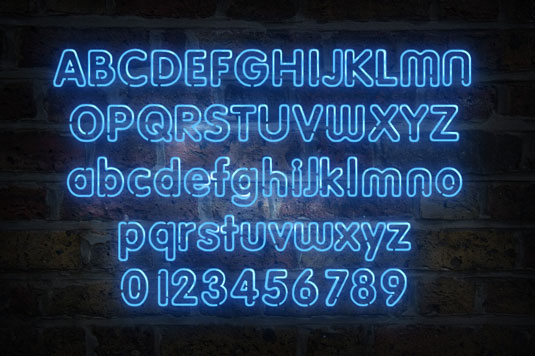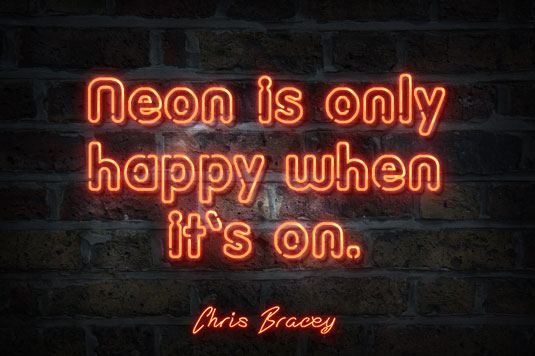
Font of the day: Gods own Junkyard
Every day we showcase the best fonts on the web. Today it's Gods own Junkyard by Simon Stratford.
Gods own Junkyard by Simon Stratford
Kicking off our font of the day posts this week is a very special project from designer Simon Stratford. Inspired by Chris "The Neon Man" Bracey, Stratford created his own neon sign typeface Gods own Junkyard.
"Chris was a British designer and artist who owned one of the biggest collections of neon signs and sculpture outside the United States," he comments. "Chris ran his own studio called Gods Own Junkyard in Walthamstow in North East London. He died on the 1 November 2014, at the age of 59 from prostate cancer."